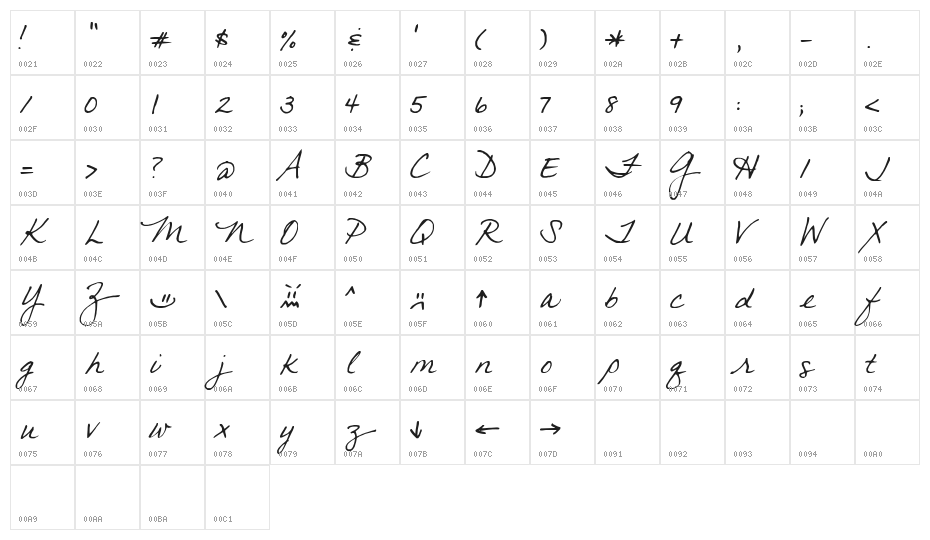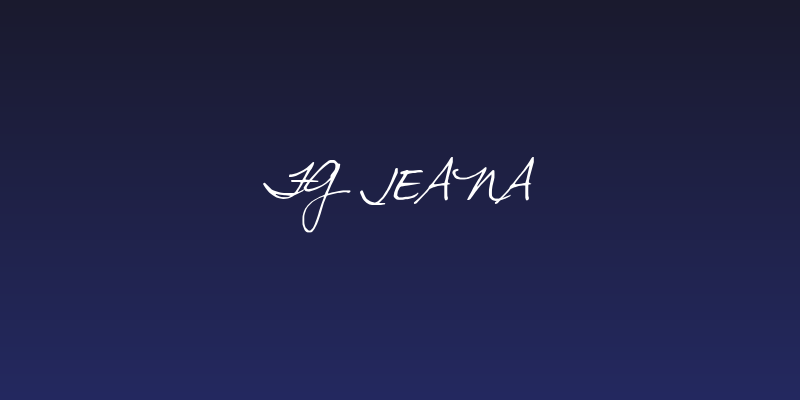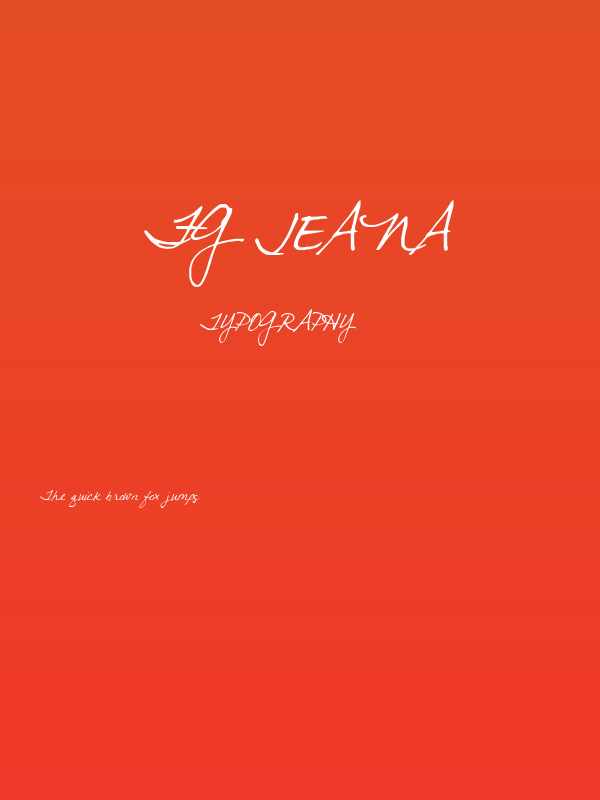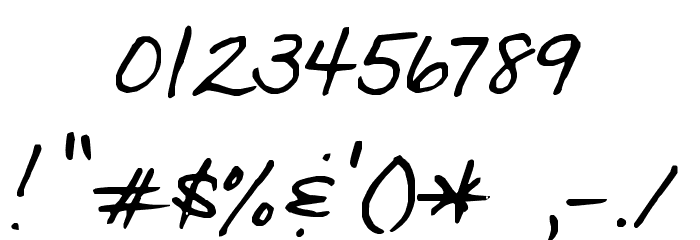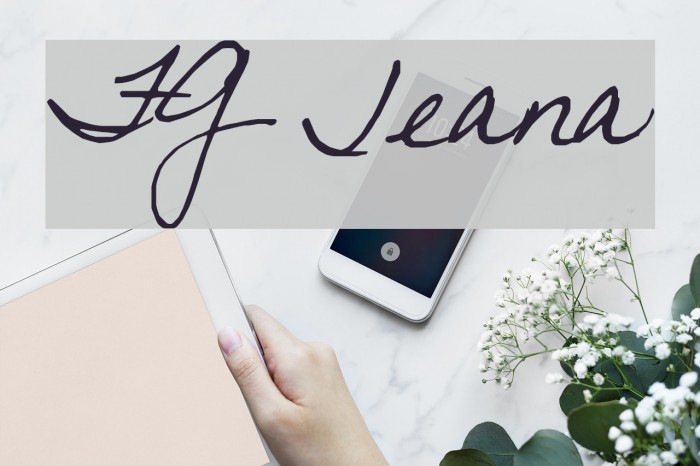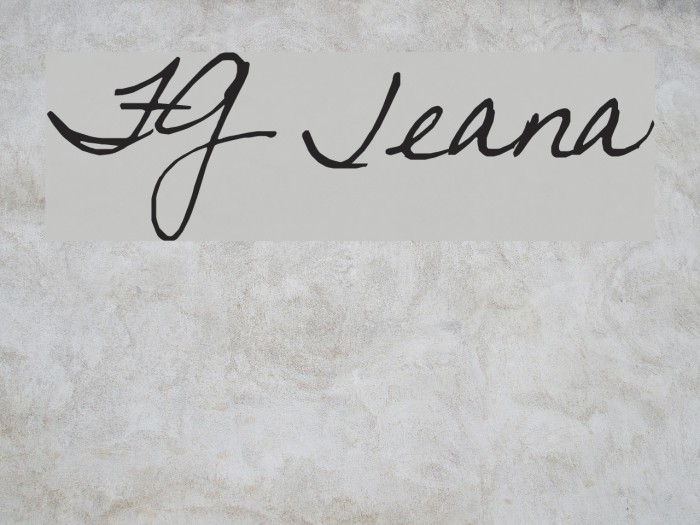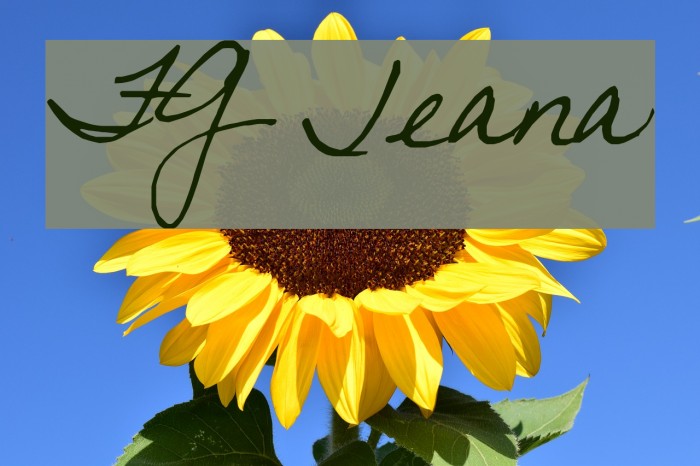
FG Jeana Font
This font exudes a dynamic and fluid handwritten style, characterized by its elegant and flowing script. The letters are interconnected, creating a seamless and continuous appearance that mimics natural handwriting. The uppercase letters are bold and slightly larger, providing a strong presence, while the lowercase letters maintain a consistent rhythm and flow. The numbers and special characters are crafted with the same attention to detail, ensuring a cohesive look throughout. The overall design is both sophisticated and approachable, making it suitable for a variety of creative applications.
| Proposed Projects | Ideal for wedding invitations, personal branding, greeting cards, and artistic projects requiring a personal touch. |